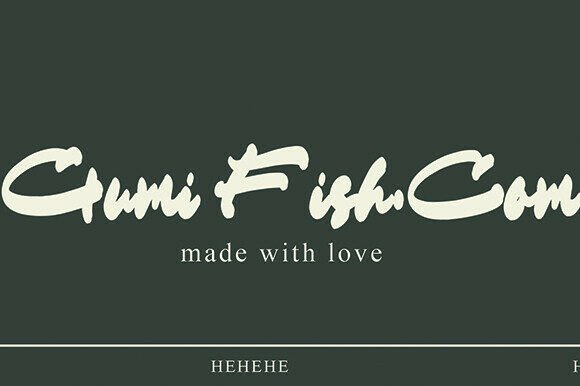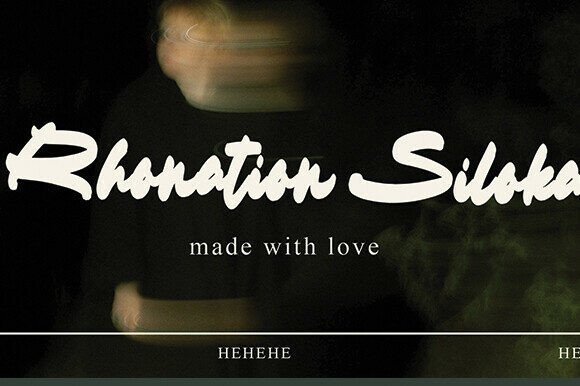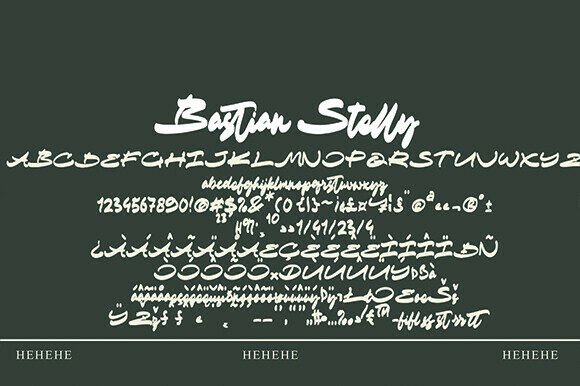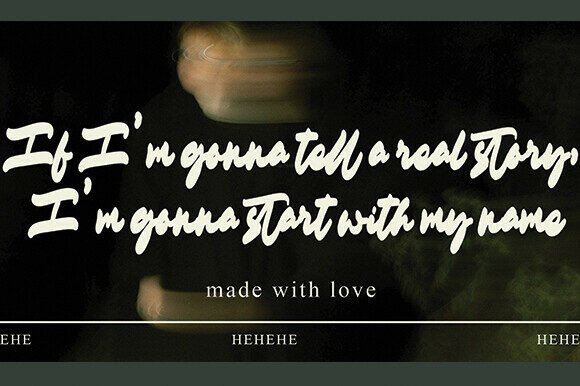
Bastian Stelly Font: Elevate Your Design with a Modern Script Font
In the world of typography, a well-chosen font can make all the difference in elevating your design to the next level. For designers and crafters looking for a modern and stylish script font that exudes a sense of sophistication and approachability, look no further than Bastian Stelly. This contemporary script font strikes the perfect balance between a casual, handwritten flow and bold, high-visibility strokes, making it an ideal choice for a wide range of design applications.
Characteristics of Bastian Stelly Font
Bastian Stelly is characterized by its smooth, thick lines with a consistent weight, giving the letterforms a clean and polished appearance. The font features a forward-leaning slant, which provides a natural rhythm and an approachable, friendly character. This unique combination of features makes Bastian Stelly a versatile font that can be used for everything from fashion boutique branding to modern editorial signatures, creative logotypes, and lifestyle photography overlays.
Design Applications for Bastian Stelly Font
So, what makes Bastian Stelly an ideal choice for designers and crafters? Here are just a few examples of design applications where this modern script font shines:
- Fashion Boutique Branding: Bastian Stelly’s stylish and sophisticated aesthetic makes it a perfect fit for fashion boutiques looking to create a luxurious and high-end brand image.
- Modern Editorial Signatures: The font’s clean and contemporary appearance makes it an excellent choice for editorial designers looking to add a touch of elegance and sophistication to their work.
- Creative Logotypes: Bastian Stelly’s unique blend of casual and bold strokes makes it an excellent choice for creative logotypes that require a distinctive and memorable brand identity.
- Lifestyle Photography Overlays: The font’s smooth lines and natural rhythm make it an excellent choice for lifestyle photography overlays, adding a touch of warmth and approachability to your images.
Benefits of Using Bastian Stelly Font
So, why choose Bastian Stelly over other script fonts? Here are just a few benefits of using this modern script font in your design projects:
- Versatility: Bastian Stelly’s unique combination of features makes it a versatile font that can be used for a wide range of design applications.
- Readability: The font’s clean and consistent weight makes it easy to read, even at smaller sizes.
- Elegance: Bastian Stelly’s sophisticated aesthetic adds a touch of elegance and sophistication to any design project.
- Uniqueness: The font’s distinctive blend of casual and bold strokes sets it apart from other script fonts, making it an excellent choice for designers looking to create a unique brand identity.
Tips for Using Bastian Stelly Font Effectively
To get the most out of Bastian Stelly, here are a few tips for using the font effectively in your design projects:
- Pair with contrasting fonts: Bastian Stelly’s bold strokes make it an excellent choice for headlines, while a contrasting font can be used for body text to create visual interest.
- Experiment with colors: The font’s smooth lines and natural rhythm make it an excellent choice for use with a range of colors and textures.
- Use for emphasis: Bastian Stelly’s unique aesthetic makes it an excellent choice for use in emphasis, such as headings, titles, and captions.
In conclusion, Bastian Stelly is a modern and stylish script font that offers a unique blend of casual and bold strokes, making it an ideal choice for designers and crafters looking to elevate their design projects. With its versatility, readability, elegance, and uniqueness, Bastian Stelly is a font that can be used for a wide range of design applications, from fashion boutique branding to modern editorial signatures, creative logotypes, and lifestyle photography overlays. By following the tips outlined above, you can use Bastian Stelly to create stunning designs that are sure to leave a lasting impression.